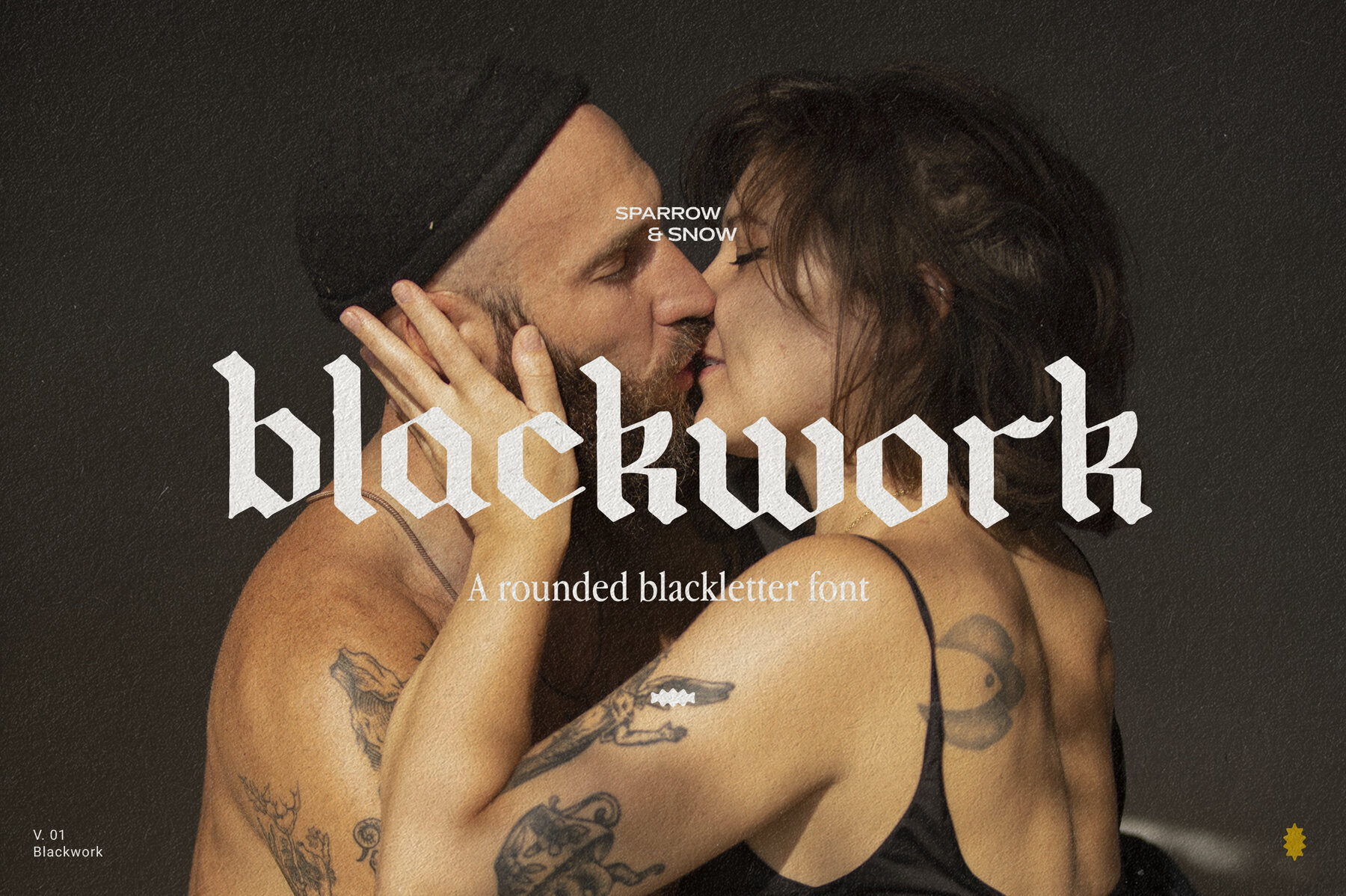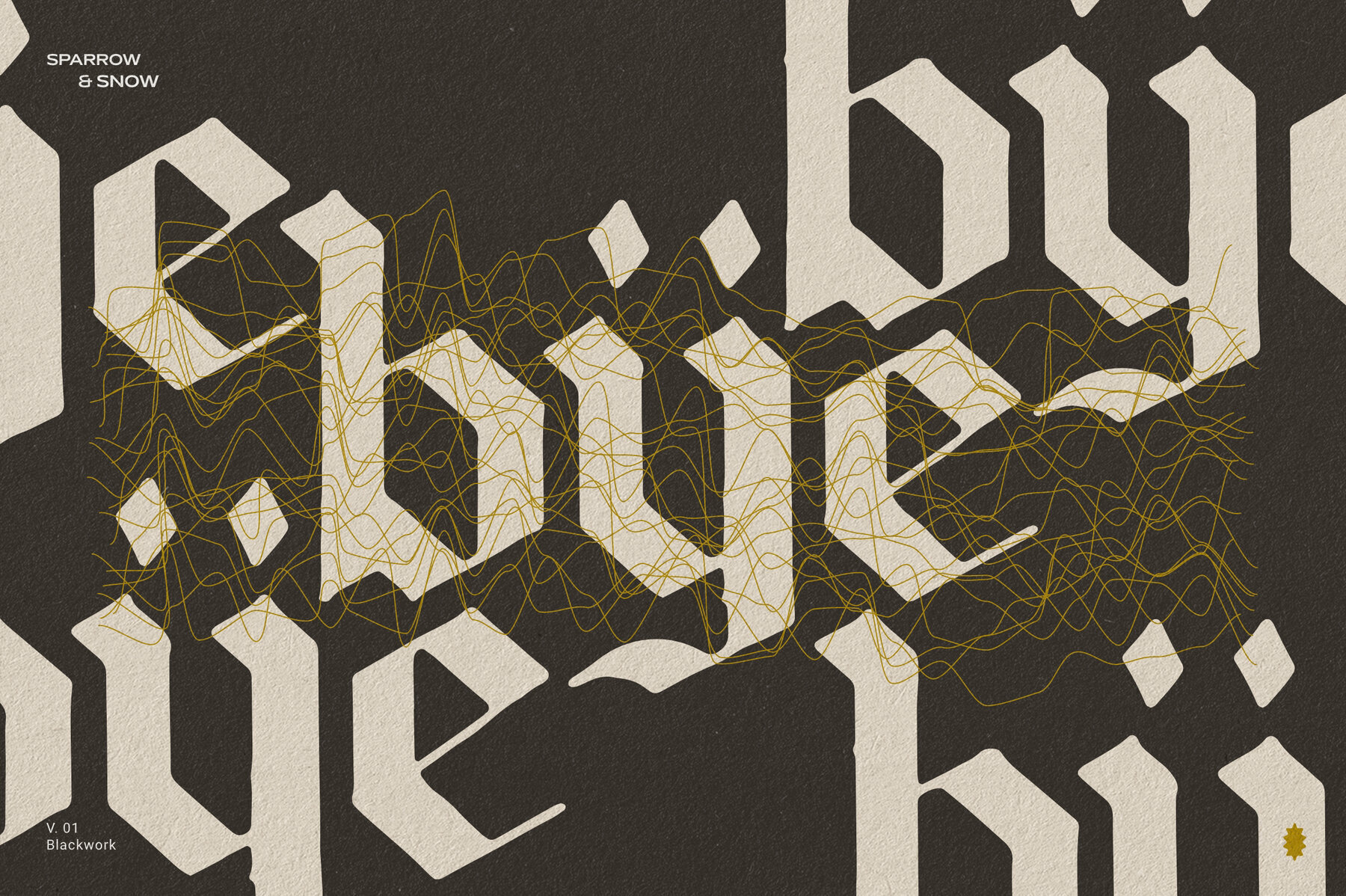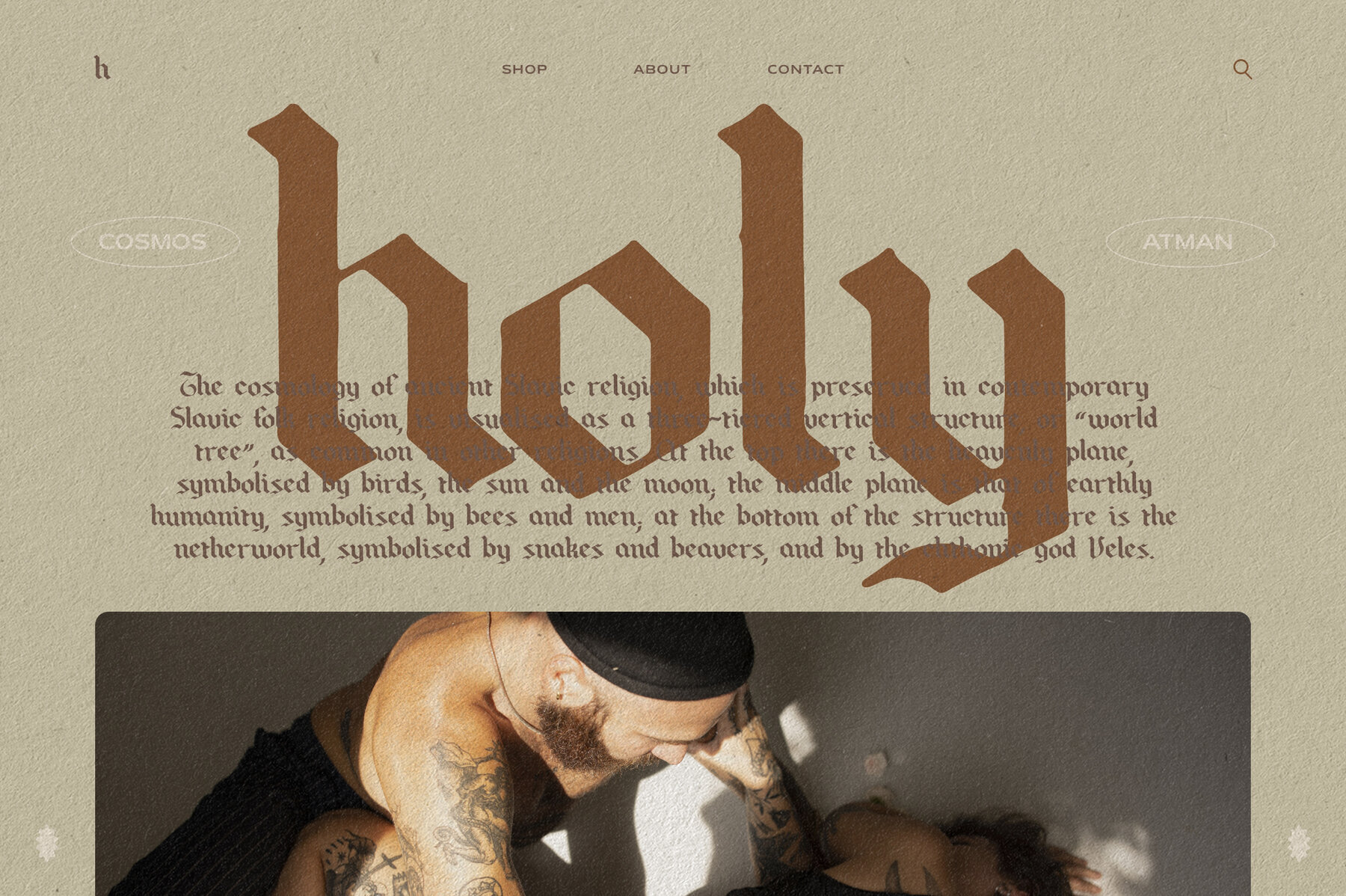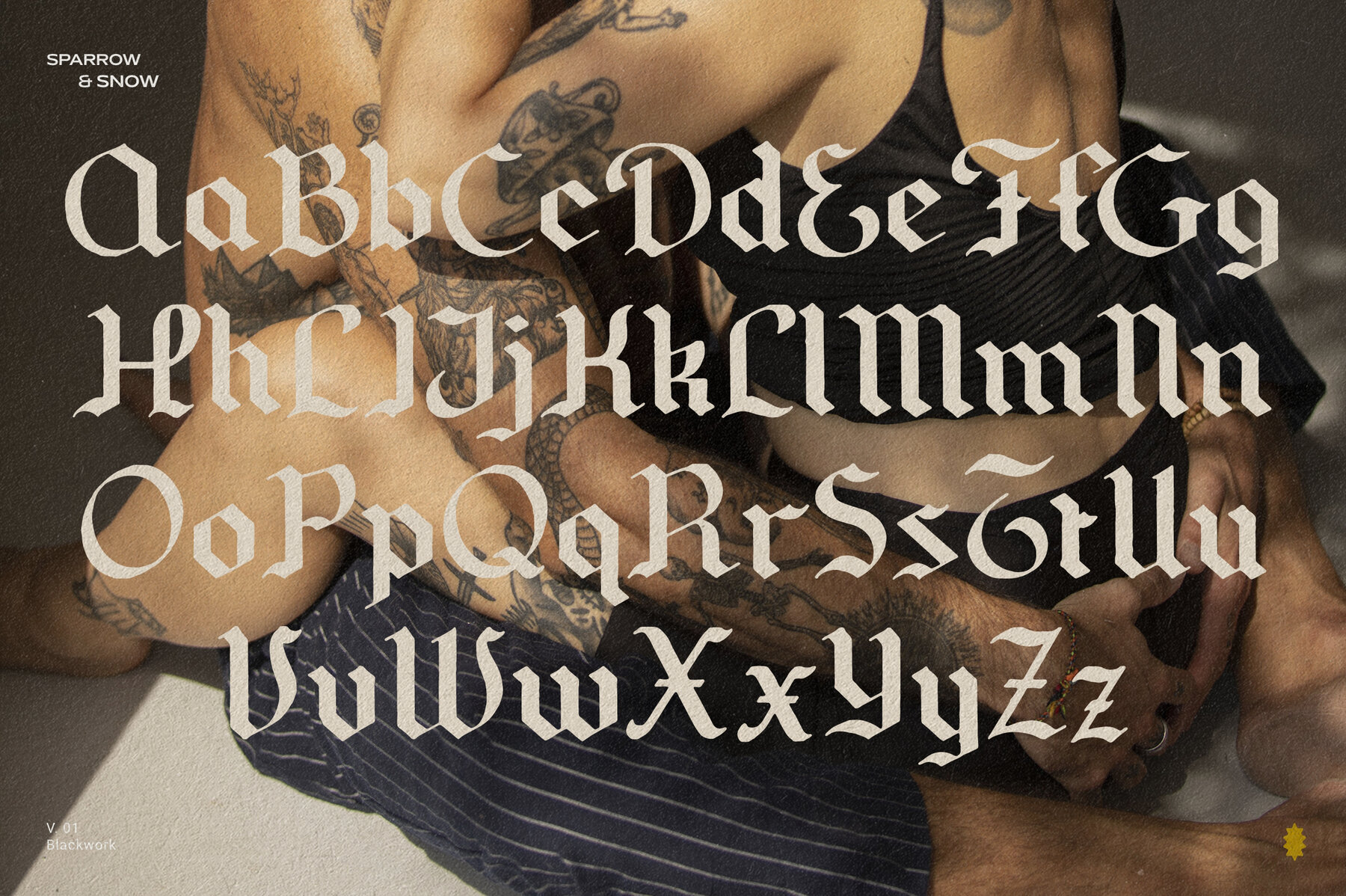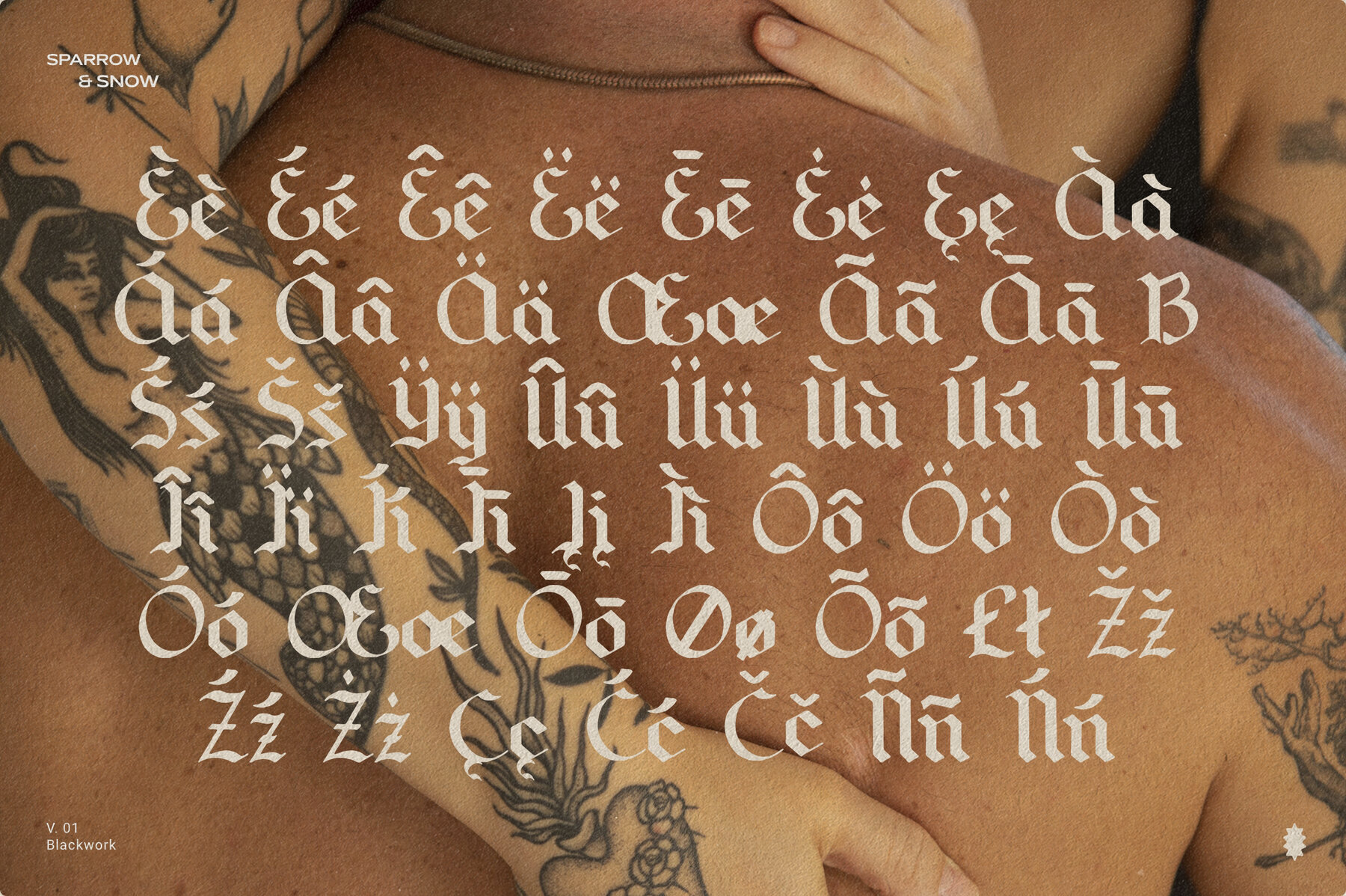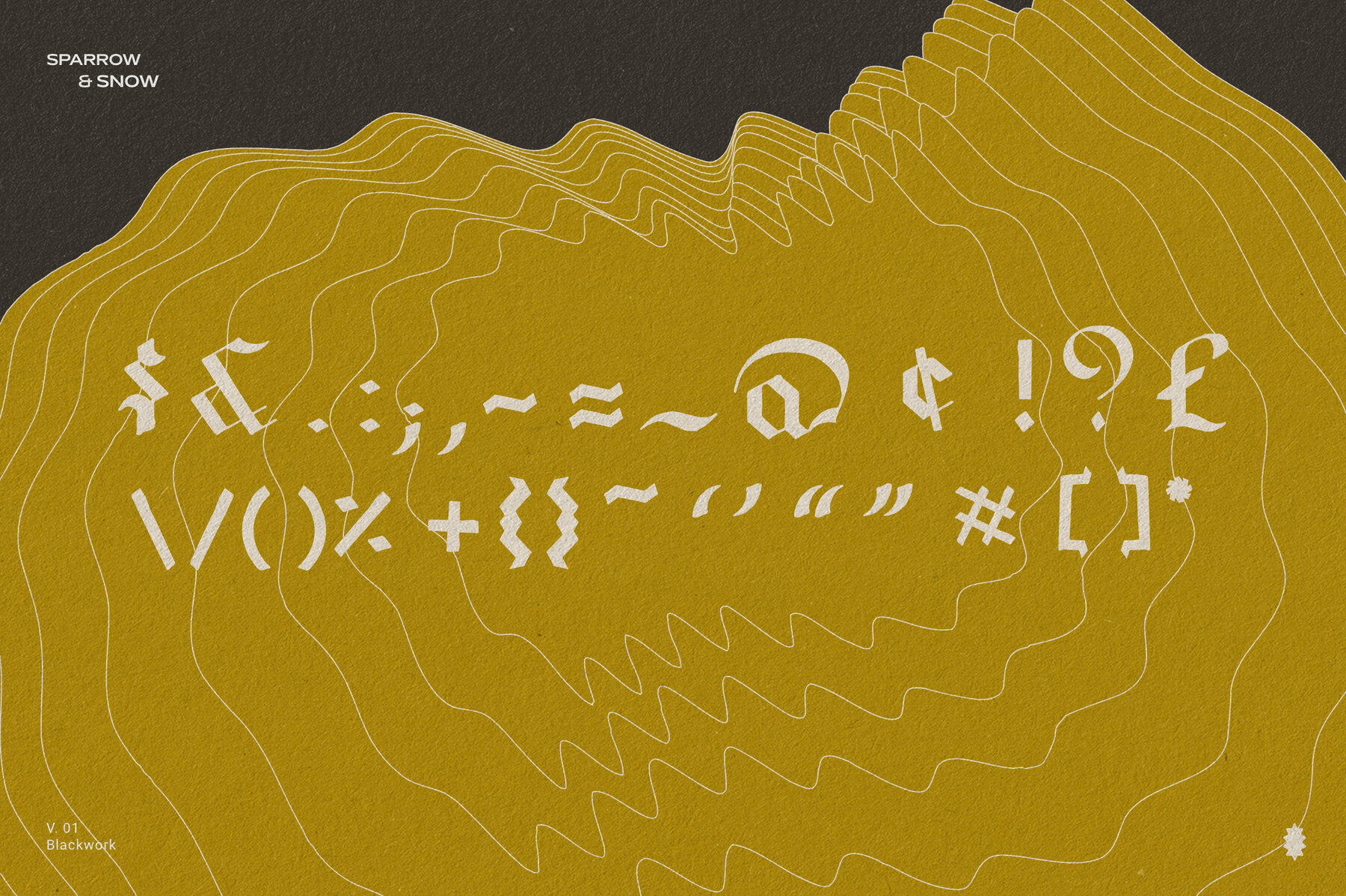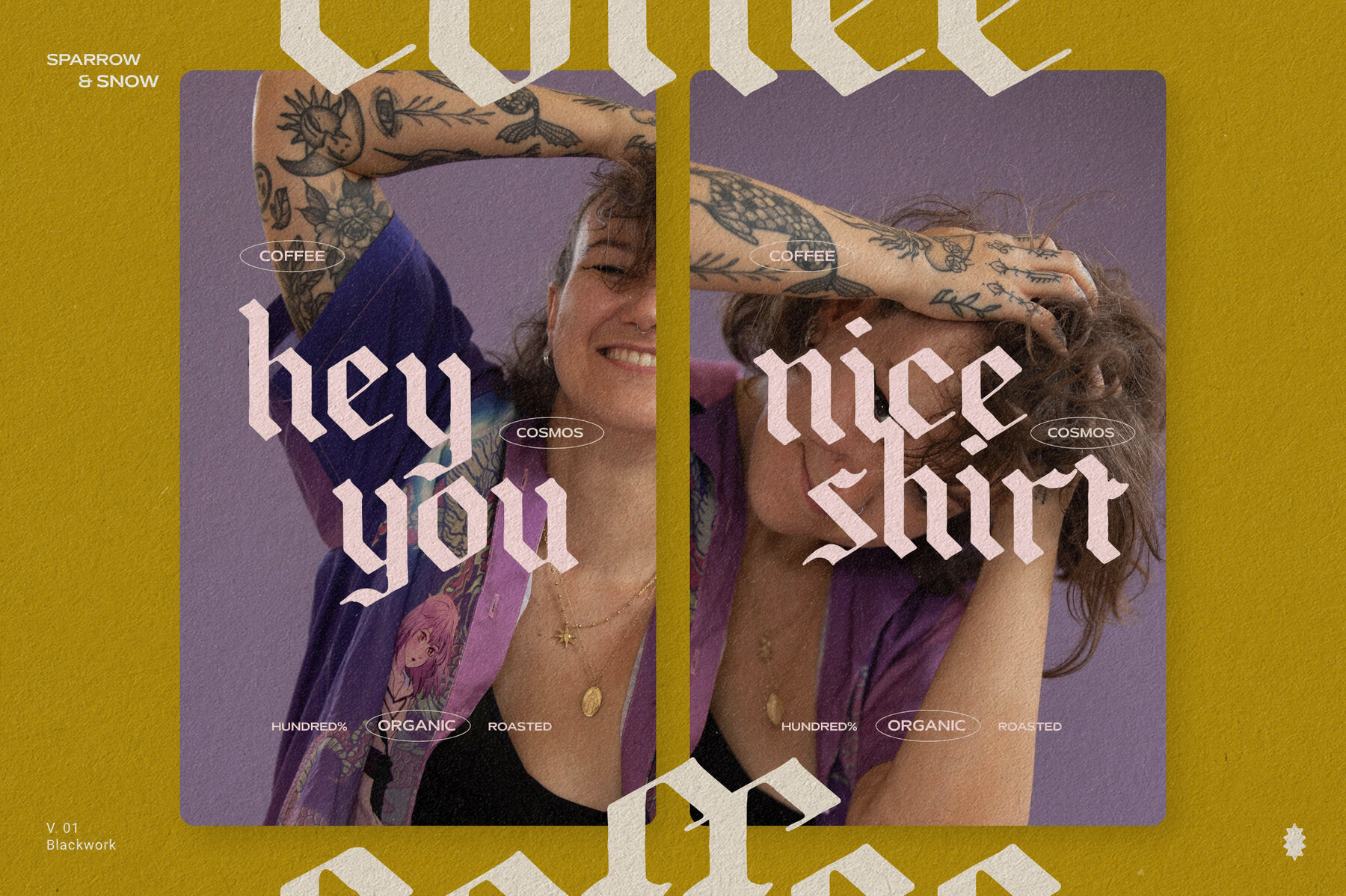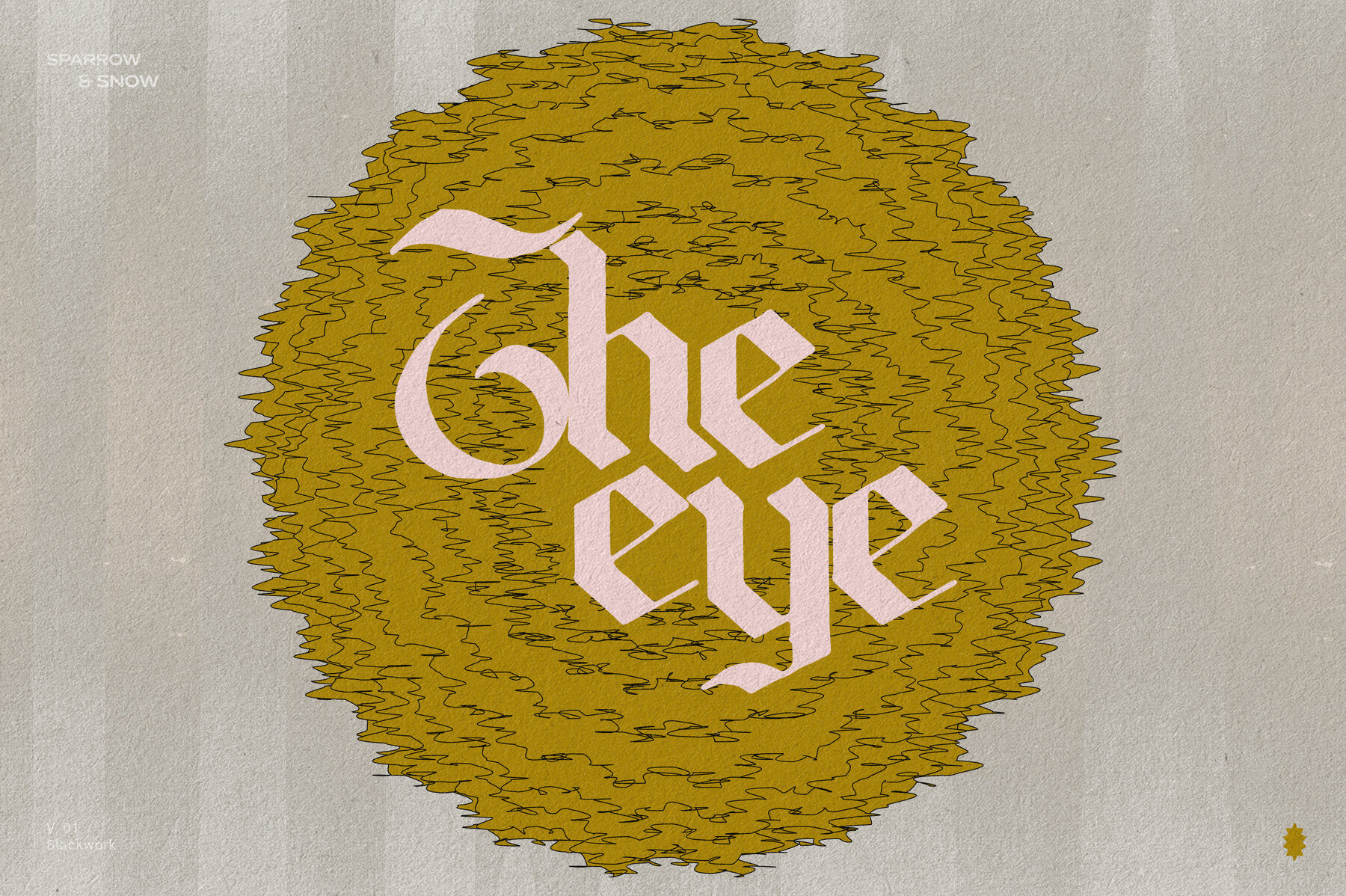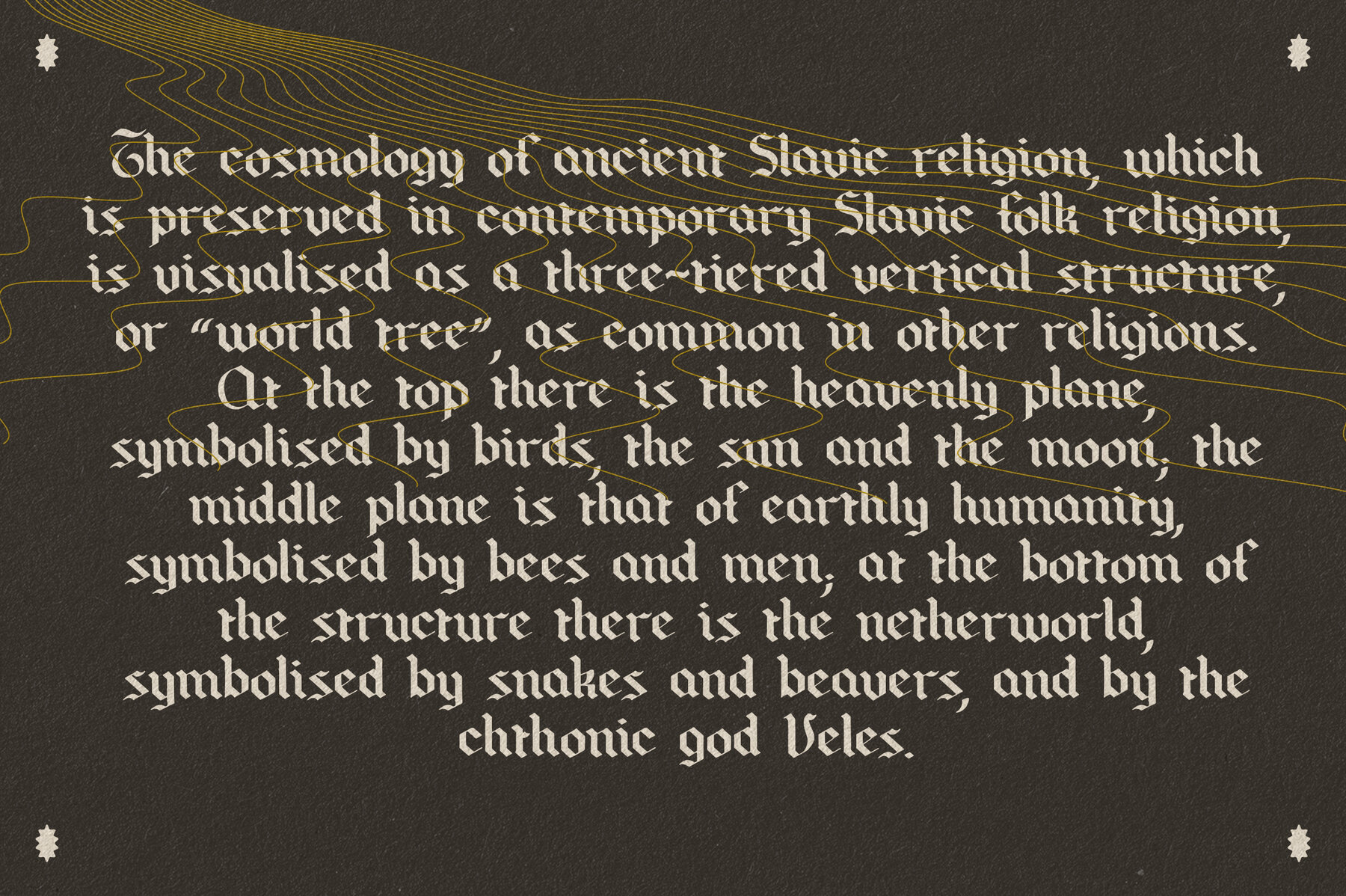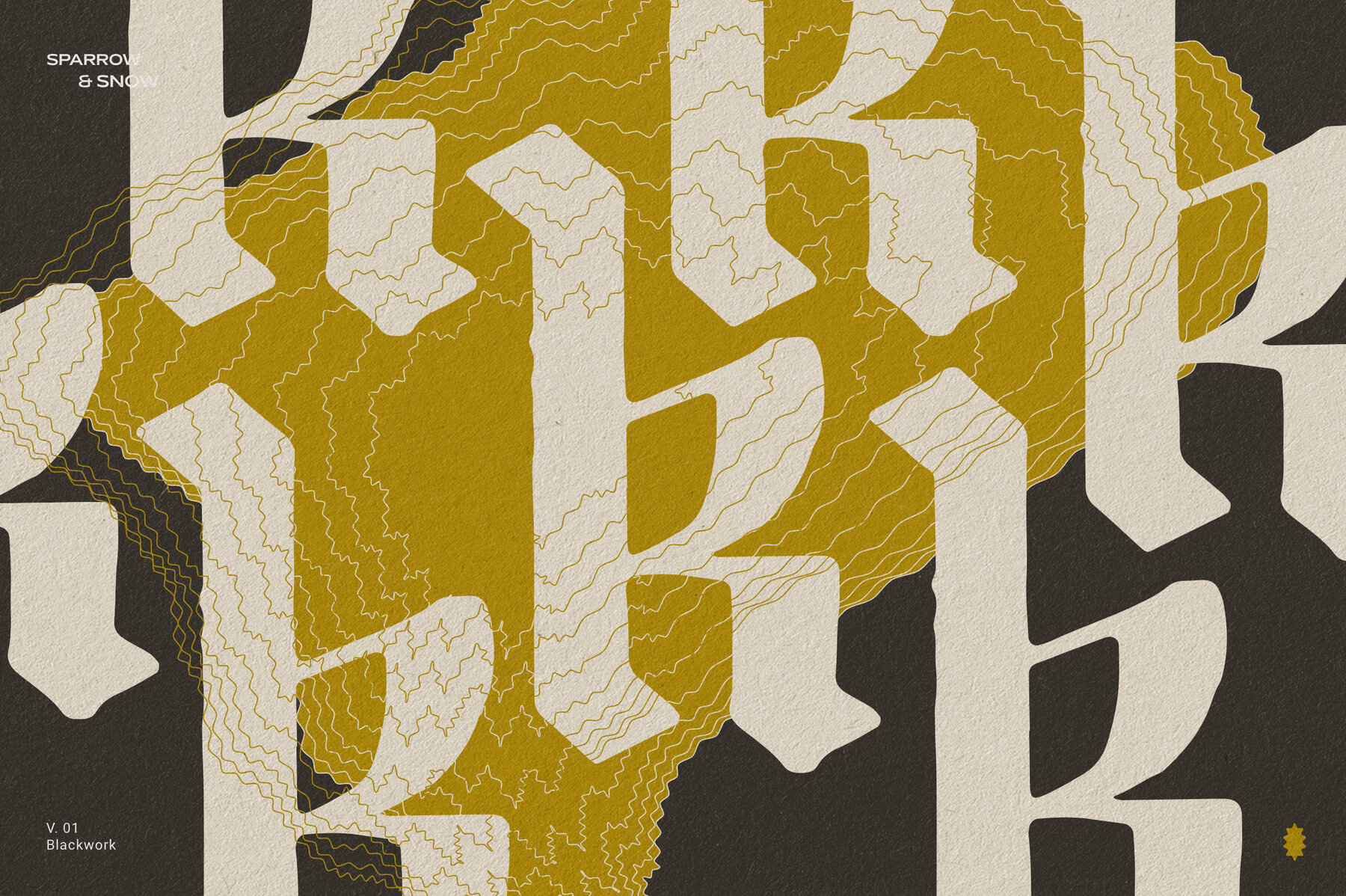
Blackwork Font
Blackwork
Blackwork is a font that has been designed with the goal of making your design projects truly stand out. The rounded edges and natural feel will help create an aesthetic for whatever project you're working on, be it logo or paragraph text; this typeface performs well across all categories while still maintaining good readability within each one! With its versatility in characters like uppercase letters (including some special ones), lower-case mouses etc., as well multilingual support including punctuation marks - Blackwork can take care